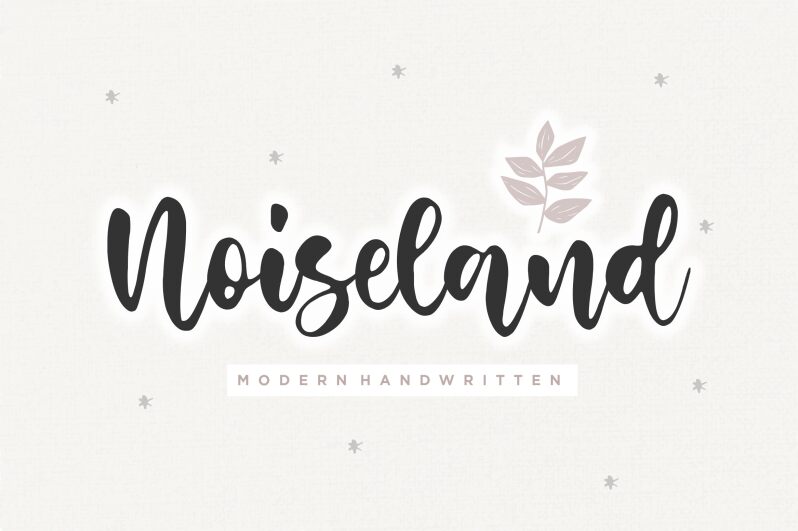
Noiseland
Introducing Noiseland, a modern handwritten font designed by Balpirick Studio with various stroke widths. This font is perfect for creative projects that require a personal and unique touch. Whether it's designing logos, branding materials, or social media graphics, Noiseland is sure to add character and charm to any project. Its playful yet sophisticated style makes it suitable for a variety of industries such as beauty, fashion, food, and lifestyle. With its versatility and eye-catching design, Noiseland is a must-have for any designer looking to add some personality to their work.